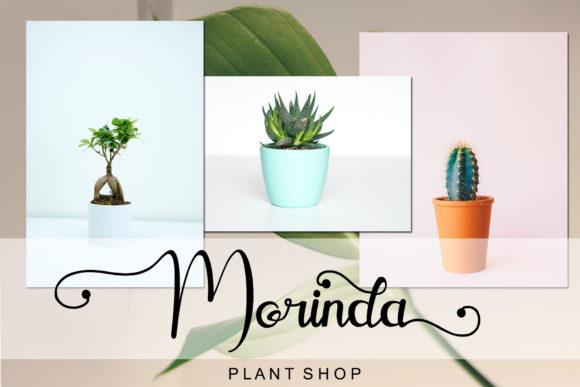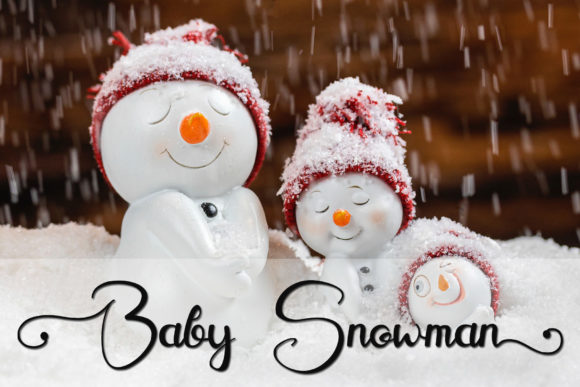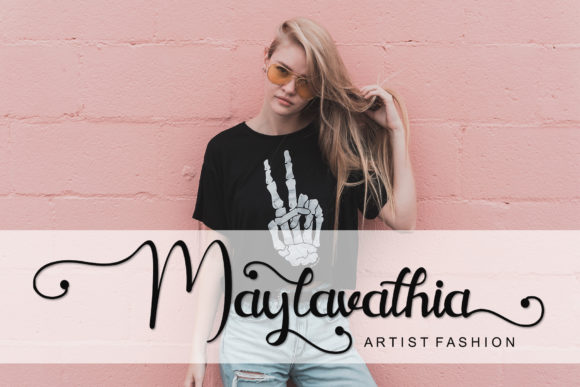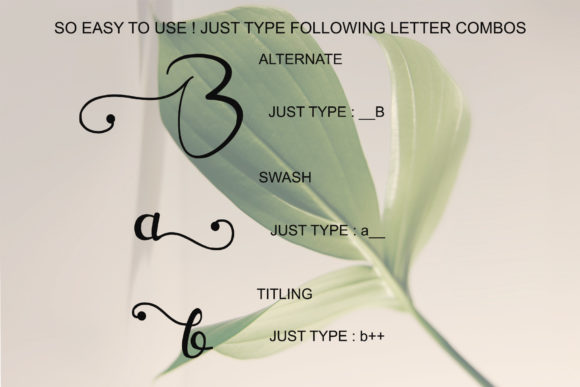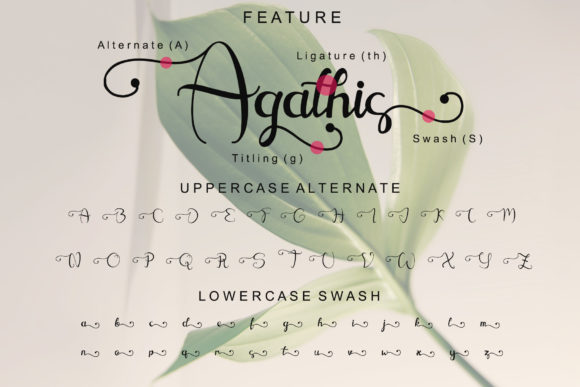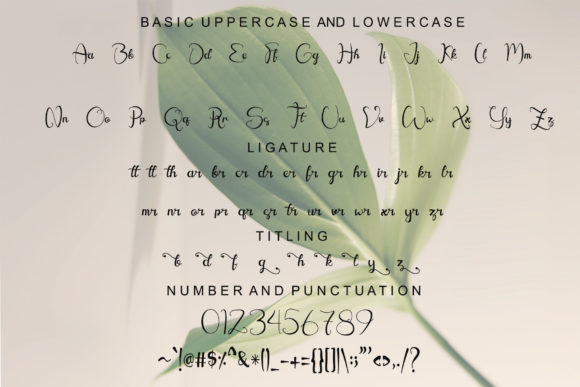
Introducing Agathis Font: A Sweet and Delicate Calligraphy Typeface
Are you a designer or crafter looking for a beautiful and versatile font to elevate your creative projects? Look no further than Agathis Font, a stunning calligraphy typeface that is sure to capture your heart. With its sweet and delicate charm, Agathis Font is perfect for a wide range of applications, from logos and wedding invitations to headings, t-shirts, and more.
What Makes Agathis Font So Special?
Agathis Font is a unique and elegant calligraphy typeface that boasts characters that dance along the baseline, creating a sense of movement and fluidity. This beautiful font is designed to add a touch of sophistication and whimsy to any project, making it perfect for designers and crafters who want to create something truly special.
Endless Possibilities with Agathis Font
One of the best things about Agathis Font is its incredible versatility. This font can be used for a wide range of purposes, including:
- Logos: Create a stunning logo for your business or brand with Agathis Font.
- Wedding Invitations: Add a touch of romance and elegance to your wedding invitations with Agathis Font.
- Headings: Use Agathis Font to create beautiful headings for your website, blog, or social media channels.
- T-Shirts: Design custom t-shirts with Agathis Font for a unique and stylish look.
- Letterhead: Elevate your business correspondence with Agathis Font on your letterhead.
- Signage: Create eye-catching signage with Agathis Font for your business or event.
- Labels: Use Agathis Font to create beautiful labels for your products or gifts.
- News: Add a touch of elegance to your news articles or blog posts with Agathis Font.
- Posters: Create stunning posters with Agathis Font for your business or event.
- Badges: Design custom badges with Agathis Font for your business or organization.
Agathis Font is PUA (Private Use Area) encoded, which means that you can access all of the glyphs and swashes with ease. This makes it simple to customize your text and add unique touches to your designs. With Agathis Font, you can:
- Access a wide range of glyphs and swashes to customize your text.
- Easily create beautiful and unique designs with Agathis Font.
- Save time and effort with the easy-to-use PUA encoding.
Agathis Font is perfect for designers and crafters who want to add a touch of elegance and sophistication to their projects. Whether you’re creating custom wedding invitations, designing logos for businesses, or crafting unique gifts, Agathis Font is the perfect choice. With its beautiful calligraphy style and versatile design, Agathis Font is sure to become a favorite in your design arsenal.